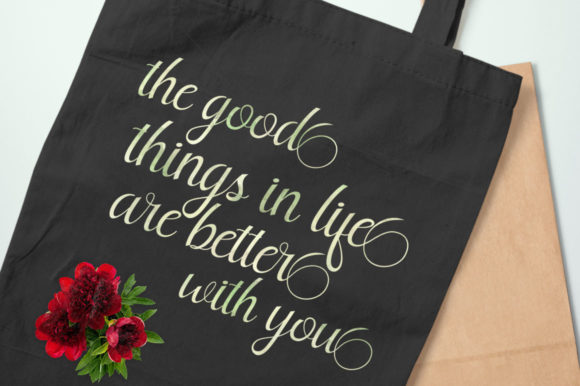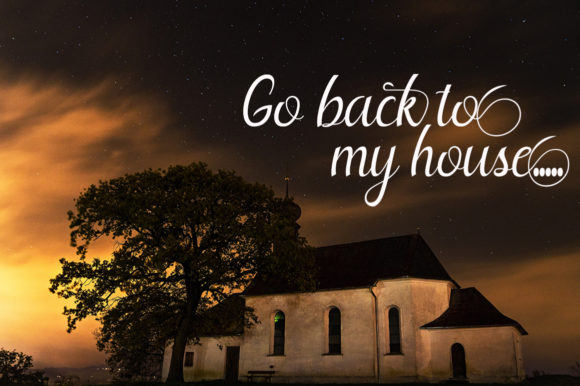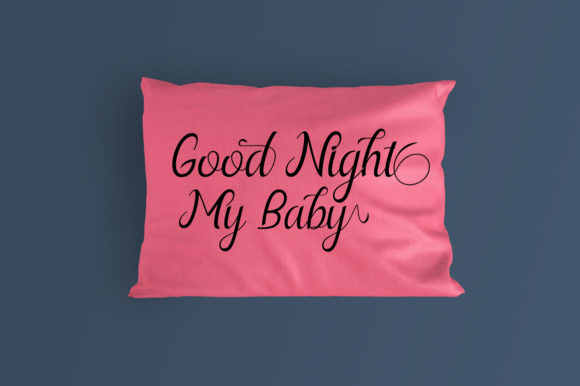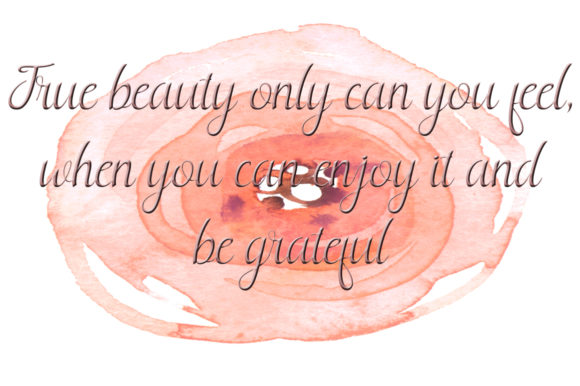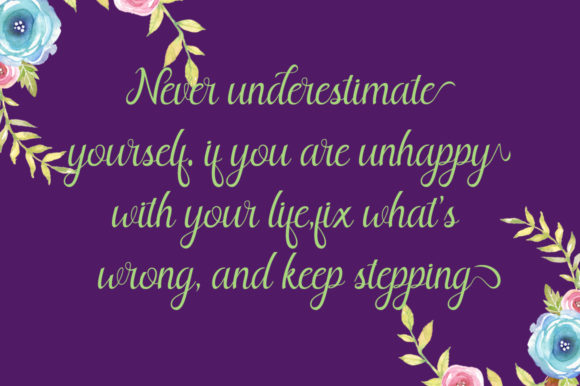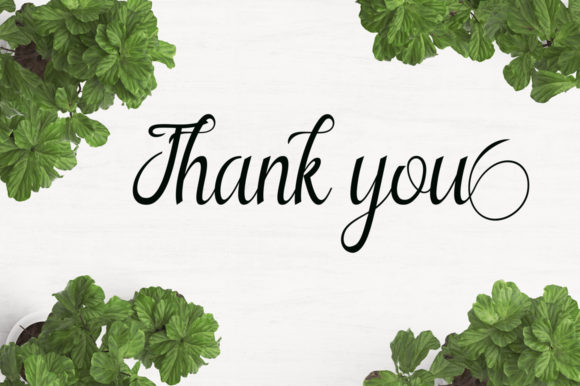
Introduction to Nayla Font
Have you ever found yourself staring at a blank canvas, trying to bring a creative idea to life? The blank page can be intimidating, but the right tool can make all the difference. For designers, the search for the perfect font is an ongoing quest, and we’re excited to introduce you to a game-changer: Nayla Font.
This stylish and elegant handwritten font is a design resource like no other. With its unique feel, it’s the perfect addition to any creative project, elevating it from ordinary to extraordinary. Whether you’re working on a personal project or a client’s brief, Nayla Font is sure to turn heads.
Key Features of Nayla Font
- Includes a large character set with multiple languages supported
- Designed to be highly legible at various resolutions and sizes, from 12pt to 72pt
- Unique characteristics include subtle texture and elegant lines
- Perfect for use in logos, typography, and other design elements
Honest Review: Nayla Font
I recently came across the Nayla Font, a stylish and elegant design resource perfect for any creative project. I was immediately drawn to its unique and modern aesthetic, which I think would be a great addition to any design portfolio.
What works well with the Nayla Font is its versatility. It can be used for a variety of design projects, from logo design to editorial content. The font’s clean lines and minimalistic design make it perfect for creating a professional and sophisticated look.
- ✨ Unique and modern aesthetic
- ✨ Versatile and suitable for various design projects
- ⚠️ Limited font variations
- ⚠️ Not ideal for projects requiring bold or playful typography
Overall, I think the Nayla Font is a great addition to any designer’s toolkit. Its unique design and high-quality production make it a valuable resource for any creative project. While it may not be ideal for every project, it’s definitely worth considering for those looking for a modern and sophisticated font.
Nayla Font
Nayla Font is a high-quality design resource that offers a free download for creative projects. This font features a transparent background, making it perfect for designers looking to add a touch of elegance to their work.
Tips for Getting the Most Out of Nayla Font
For the best results, use Nayla Font in conjunction with a high-quality image or design element. Experiment with different font sizes and colors to create a visually appealing design.
Nayla Font is perfect for use in wedding invitations, baby shower invitations, and other special occasion designs. It’s also great for use in corporate branding and marketing materials.